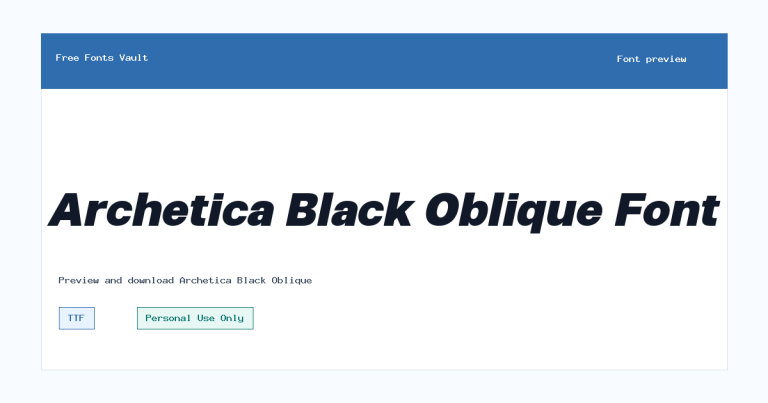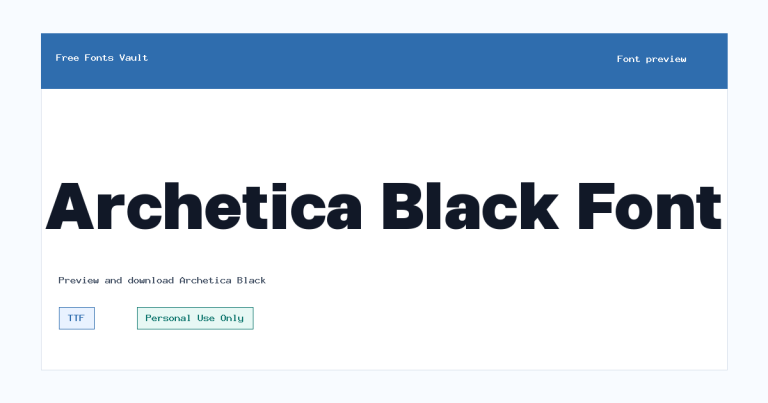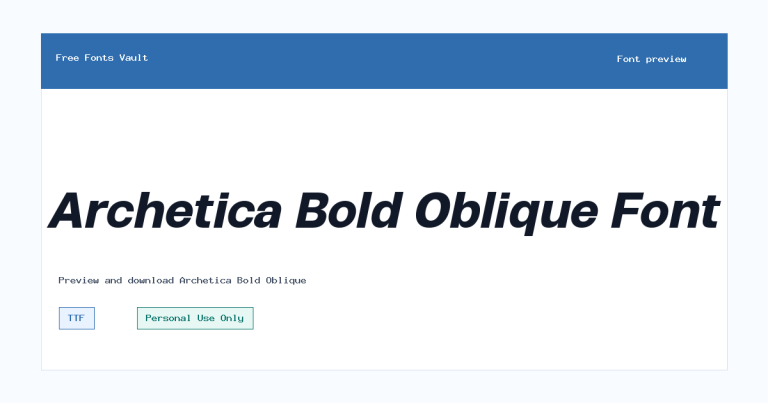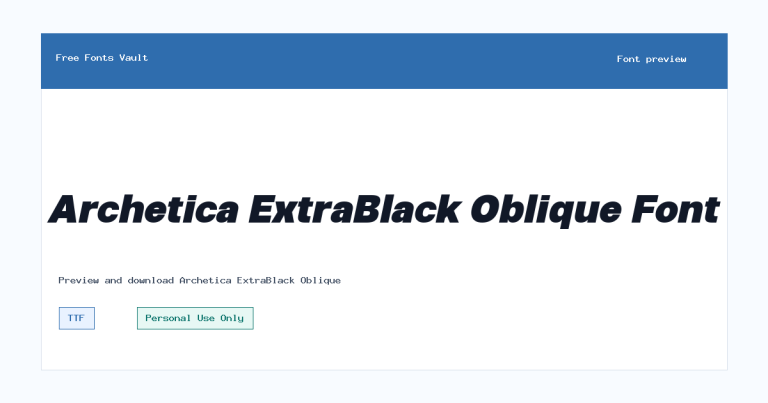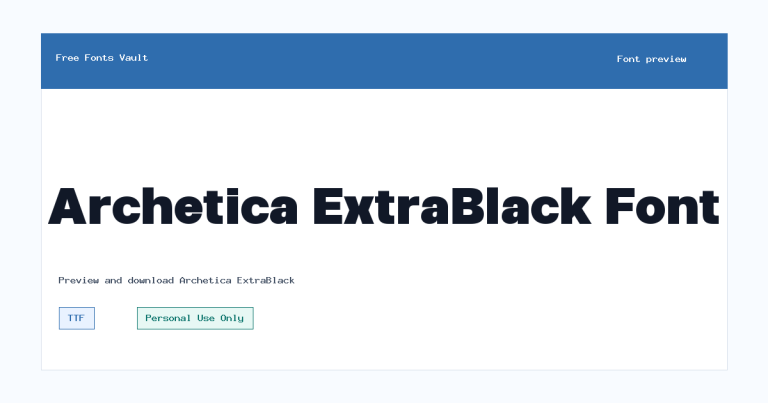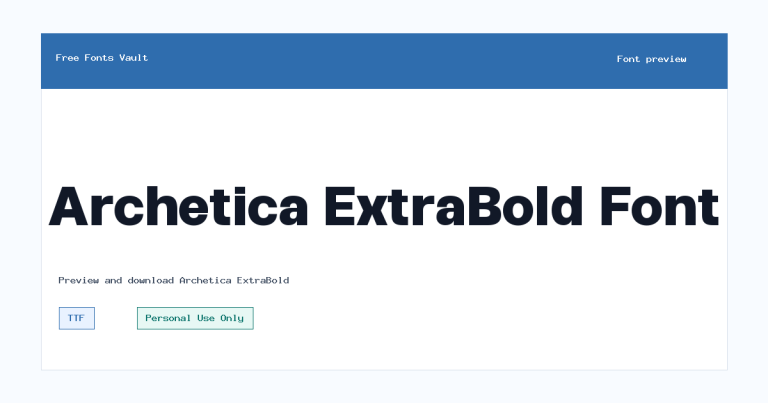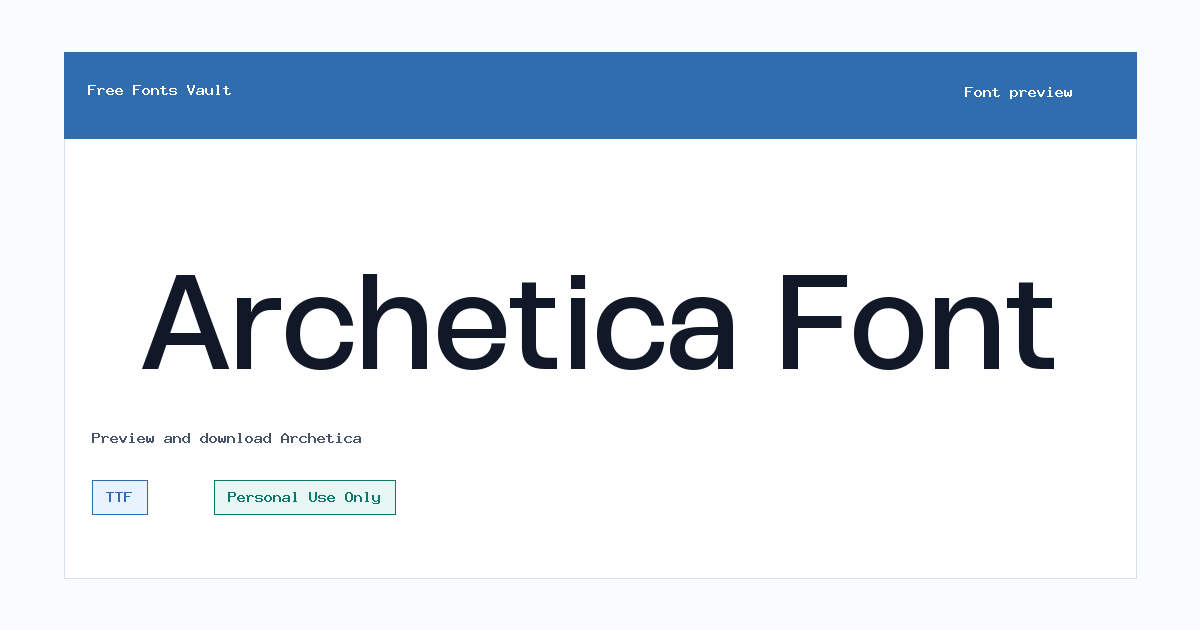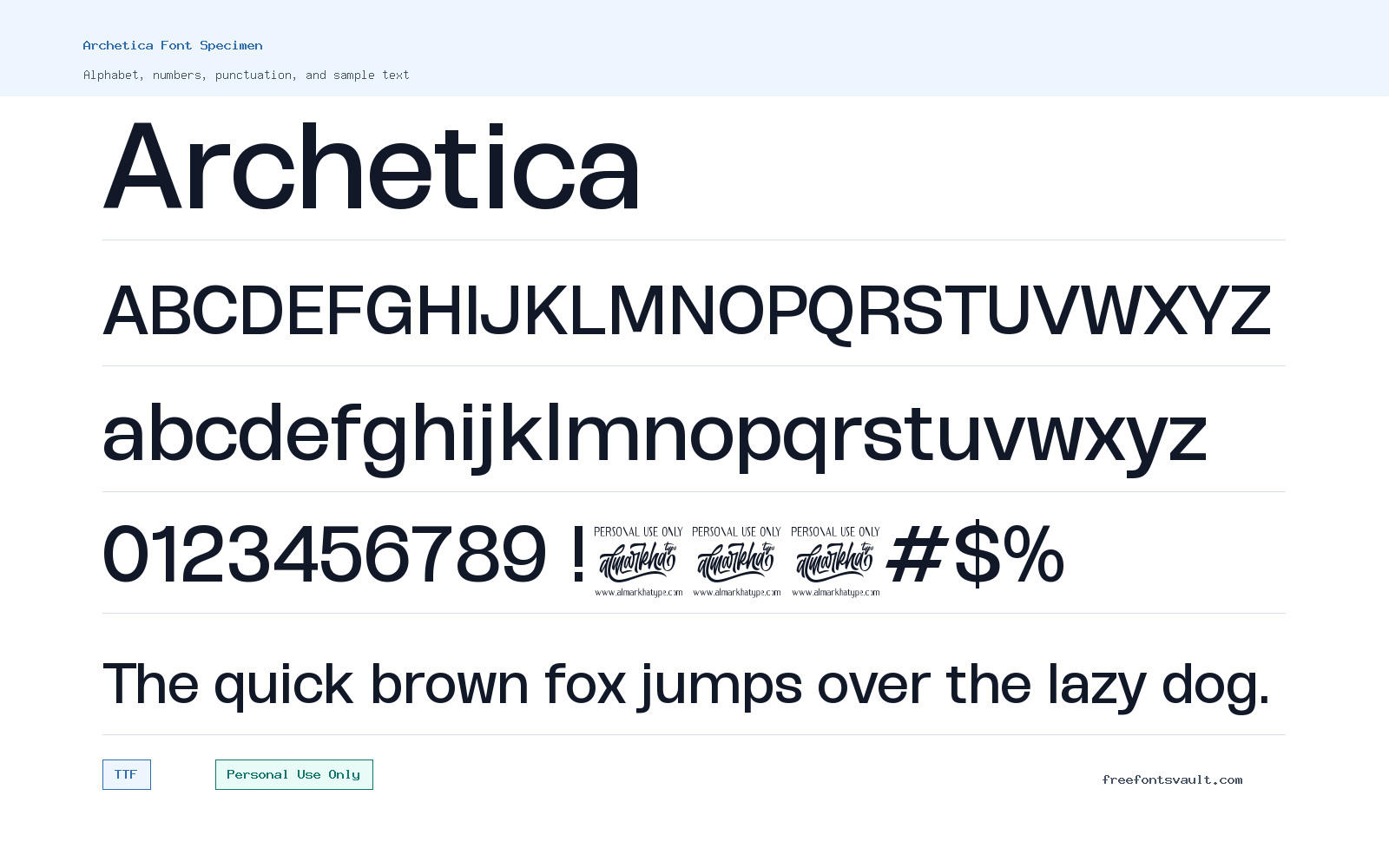
Archetica
- Designer Ridwan Fadilah & Malik Wisnu
- Foundry Almarkhatype
Archetica is a sans serif font family from Almarkhatype with Regular and Bold styles for personal design work, previews, and mockups.
About Archetica Font
Archetica is listed as a sans serif font family, with files for both Regular and Bold weights. That gives you a simple two-weight setup: use Regular for lighter text or supporting copy, and switch to Bold when you need a stronger headline, label, or short callout. Since the download includes both TTF and OTF formats, it should be easy to test in common desktop design apps, presentation tools, and layout software that support standard font installation.
For visitors trying Archetica in the preview tool, start with the exact words you plan to use: a brand name, poster title, website heading, packaging label, or social graphic text. Check how the letters sit together in uppercase, title case, and lowercase. A sans serif family can work well for clean digital layouts, but the right fit depends on spacing, proportions, and how the font behaves at the size you need. If you are building a logo concept or web mockup, compare Regular and Bold side by side before choosing one weight for the full design.
- Sans serif family with Regular and Bold weights
- Useful two-weight setup for headings, mockups, and short layout tests
- Personal logo concepts and brand-name experiments
- Poster titles, event graphics, and social media artwork
- Website header mockups and landing page drafts
- Presentation titles, labels, and clean display text
- Typography pairing tests with serif or script fonts
Archetica is credited to Ridwan Fadilah and Malik Wisnu, with Almarkhatype listed as the foundry. The designer link points to Almarkhatype.
What styles are included with Archetica?
The family has Regular and Bold styles, with font files listed in both TTF and OTF formats.